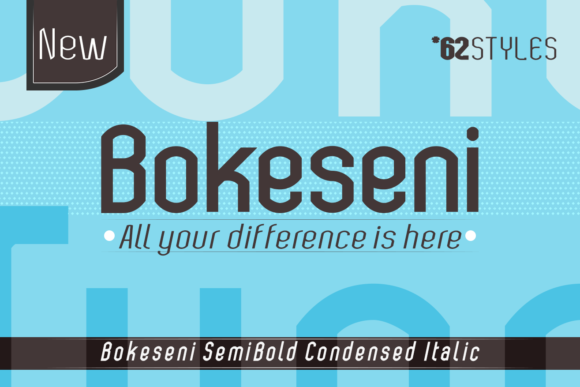
A Creative Spark: Discovering the Perfect Font
Have you ever stared at a blank page, searching for the perfect font to bring your design to life? I’m sure many creatives can relate to that feeling. The right font can elevate your work, giving it a unique personality that speaks to your audience. For me, that moment came when I stumbled upon the Bokeseni SemiBold Condensed Italic Font – a delightful sans serif font that has since become a staple in my design toolkit.
This charming font is more than just a pretty face; it’s a versatile tool that can add a touch of elegance to both formal and informal designs. Its clean and beautiful arrangement of letters makes it an excellent choice for designers looking to create visually appealing content. Whether you’re working on a logo, brochure, or social media campaign, Bokeseni SemiBold Condensed Italic Font is sure to impress.
Bokeseni SemiBold Condensed Italic Font Features
- Font Family: Bokeseni SemiBold Condensed Italic
- Unique Characteristics: Distinctive condensed and italic design, ideal for use in titles, headings, and body text where a sophisticated, yet compact look is desired
Bokeseni SemiBold Condensed Italic Font Review
I’ve had the chance to work with the Bokeseni SemiBold Condensed Italic font and I have to say, it’s a unique and interesting addition to any design project. Here are a few things that work well:
- ✨ The condensed style is great for creating a sense of urgency or importance, making it perfect for headlines and titles.
- ✨ The semi-bold weight adds a nice balance to the font, making it easy to read and not too overwhelming.
- ✨ The italic style gives the font a nice touch of elegance and sophistication.
- ⚠️ The font may not be suitable for large blocks of text, as the condensed style can make it difficult to read.
Overall, I think the Bokeseni SemiBold Condensed Italic font is a great choice for designers looking to add some personality and flair to their projects. While it may have some limitations, it’s a unique and interesting font that can really make a design stand out.
Tips for Getting the Most Out of Bokeseni SemiBold Condensed Italic Font
Use Bokeseni SemiBold Condensed Italic Font for titles, headings, and short paragraphs where emphasis is needed. It works well for creating a modern and sleek design aesthetic.